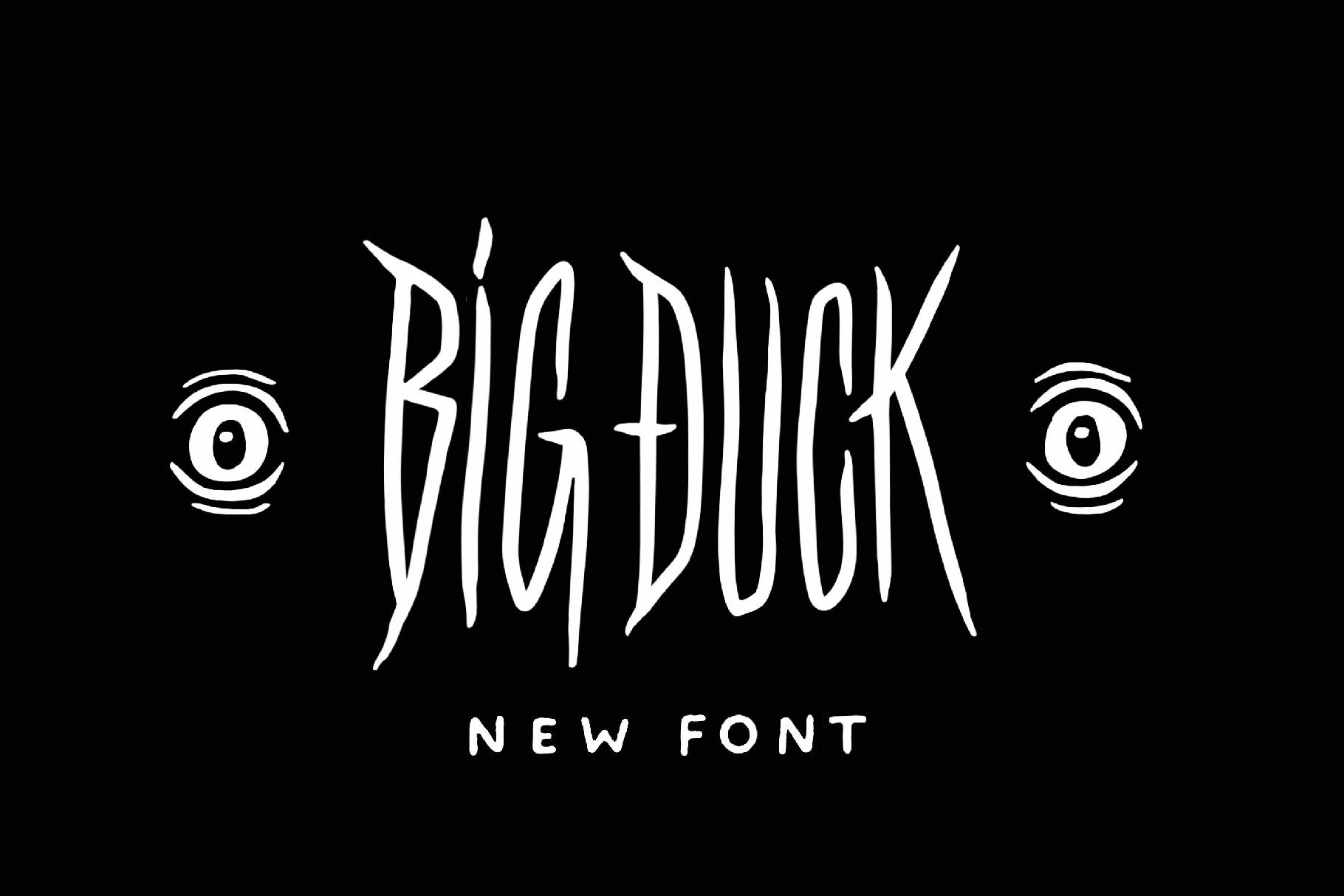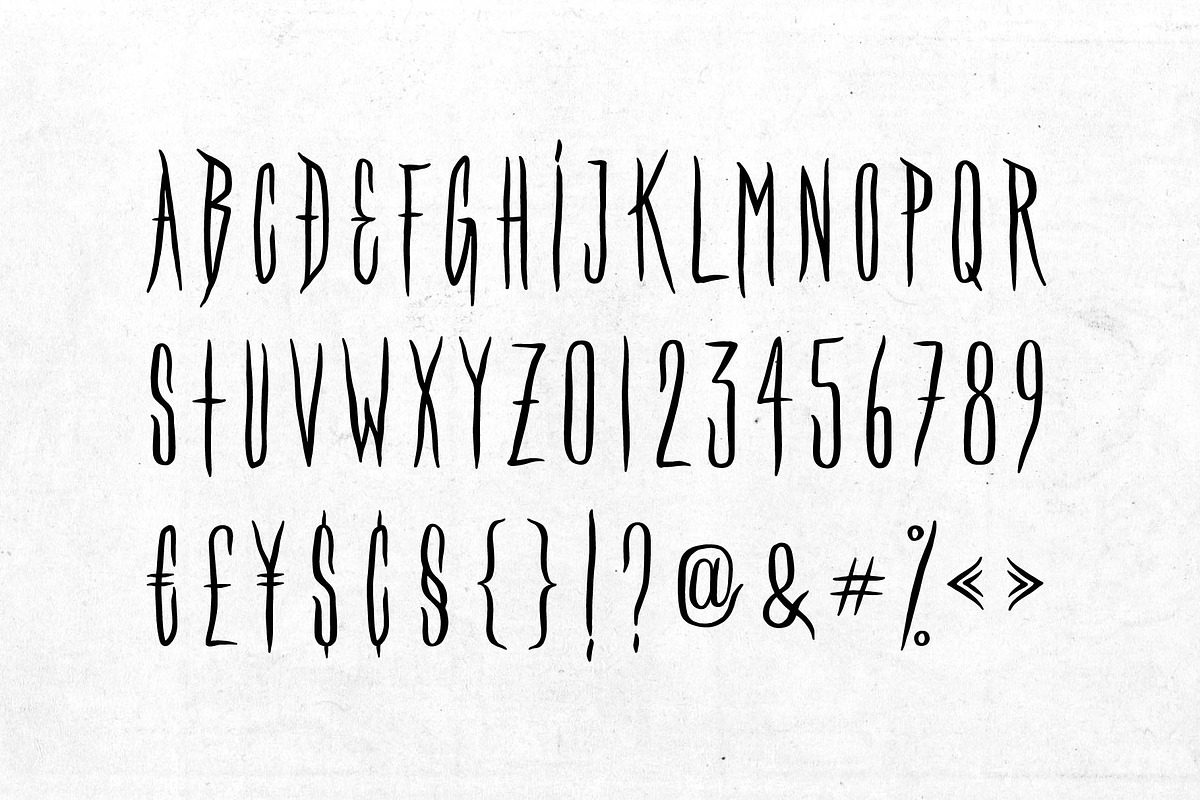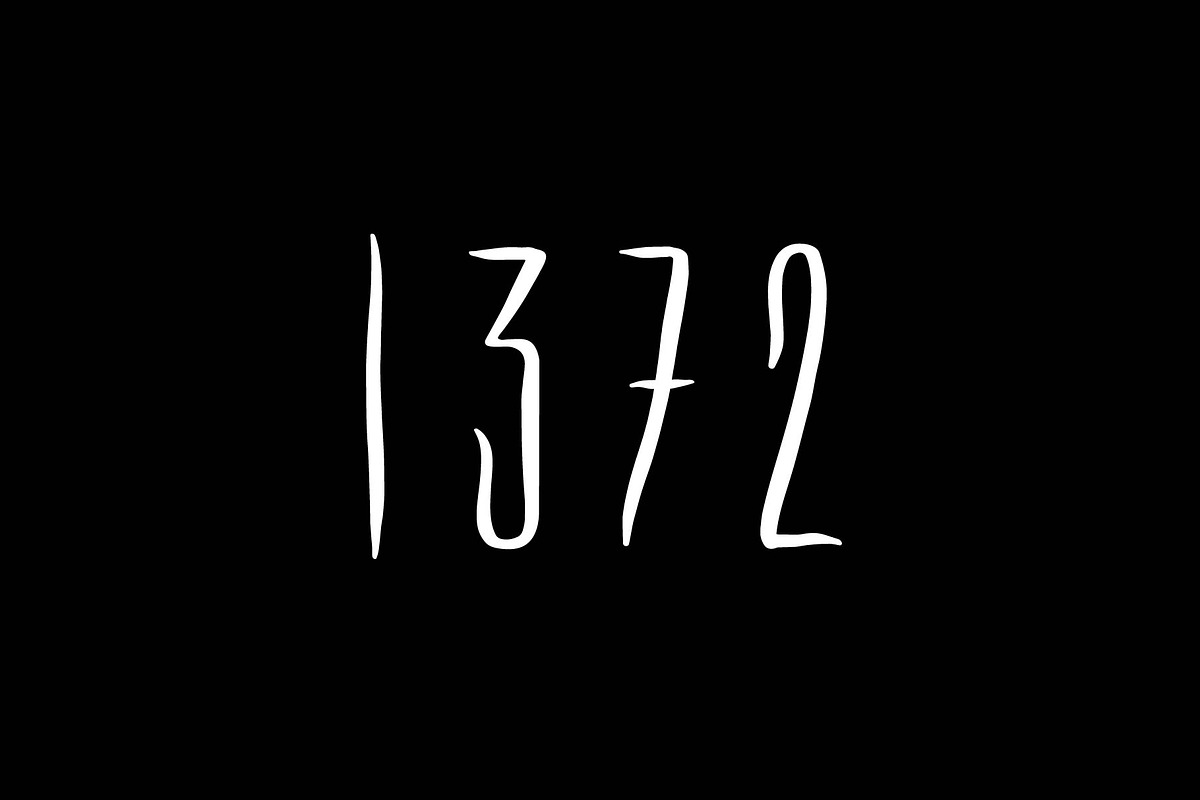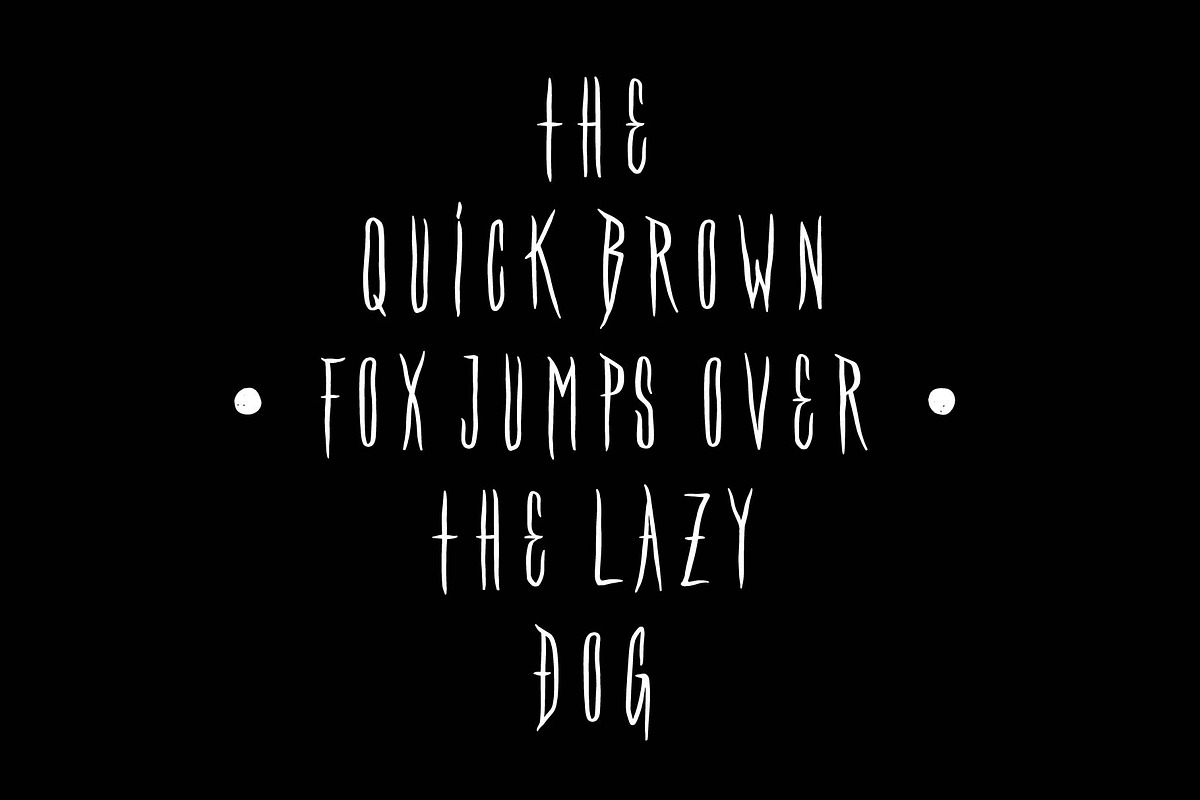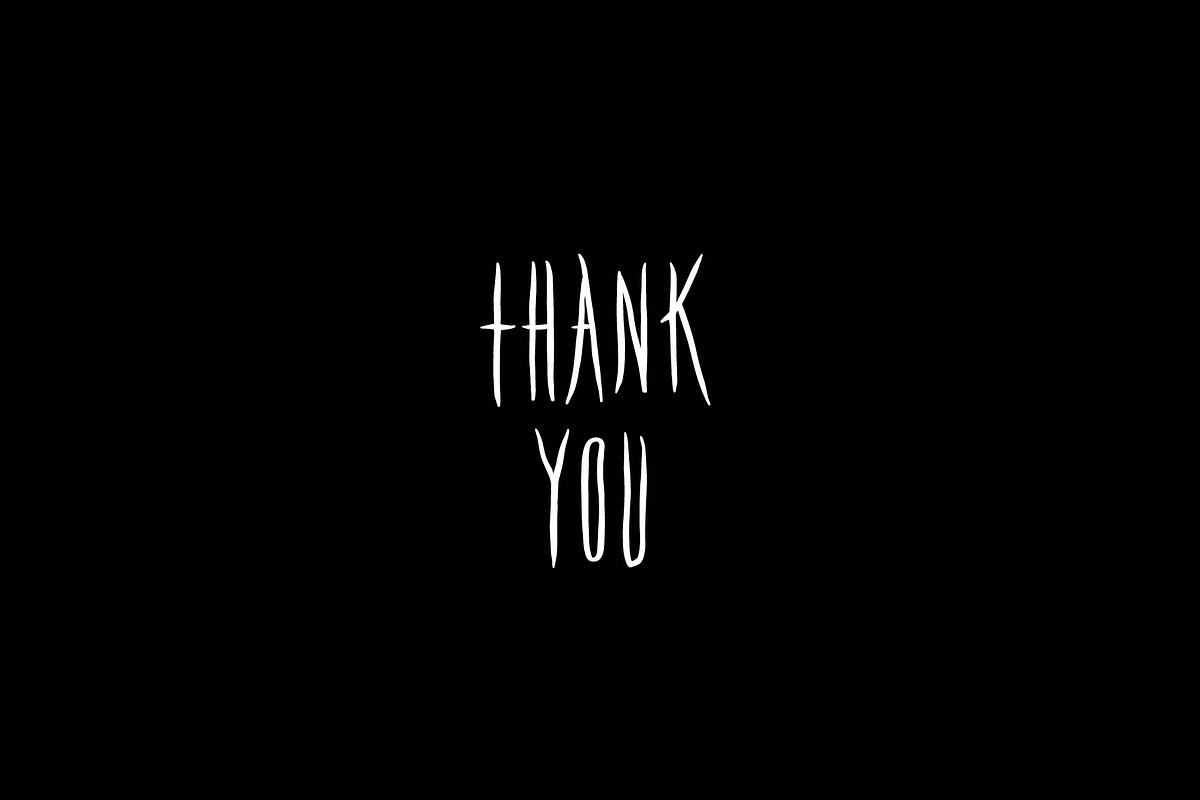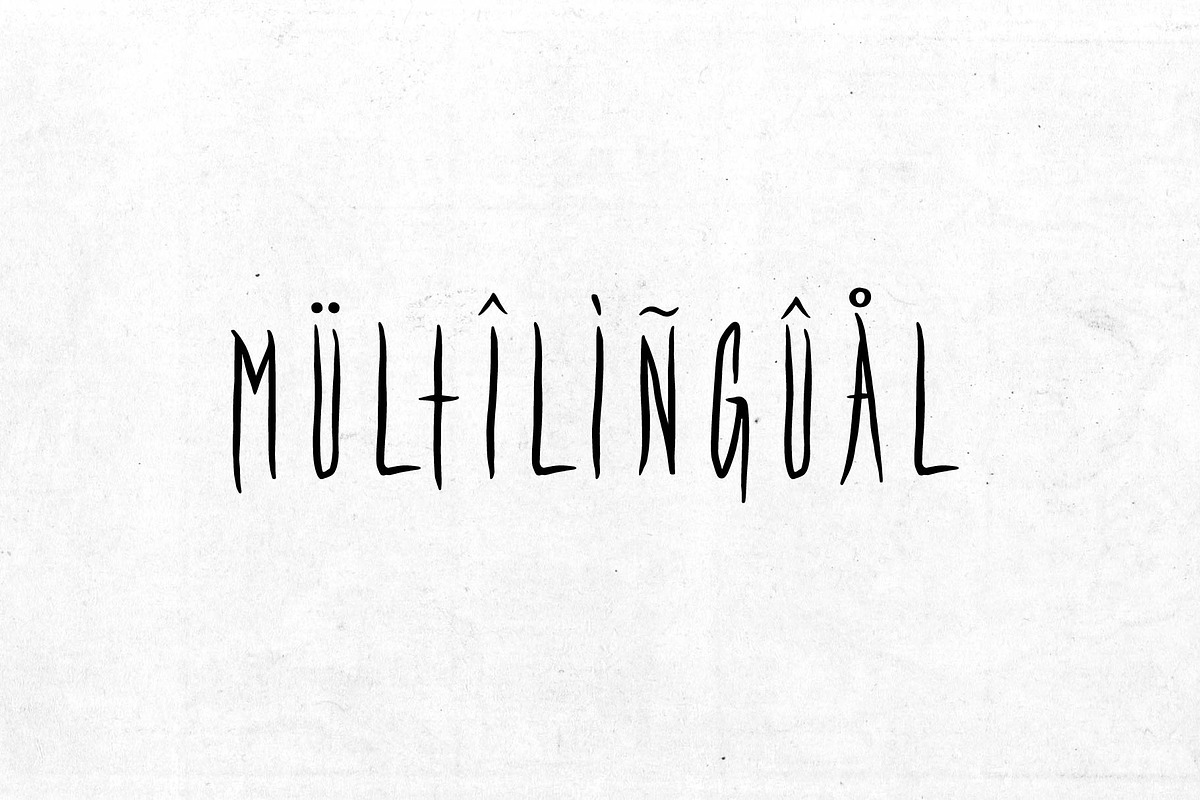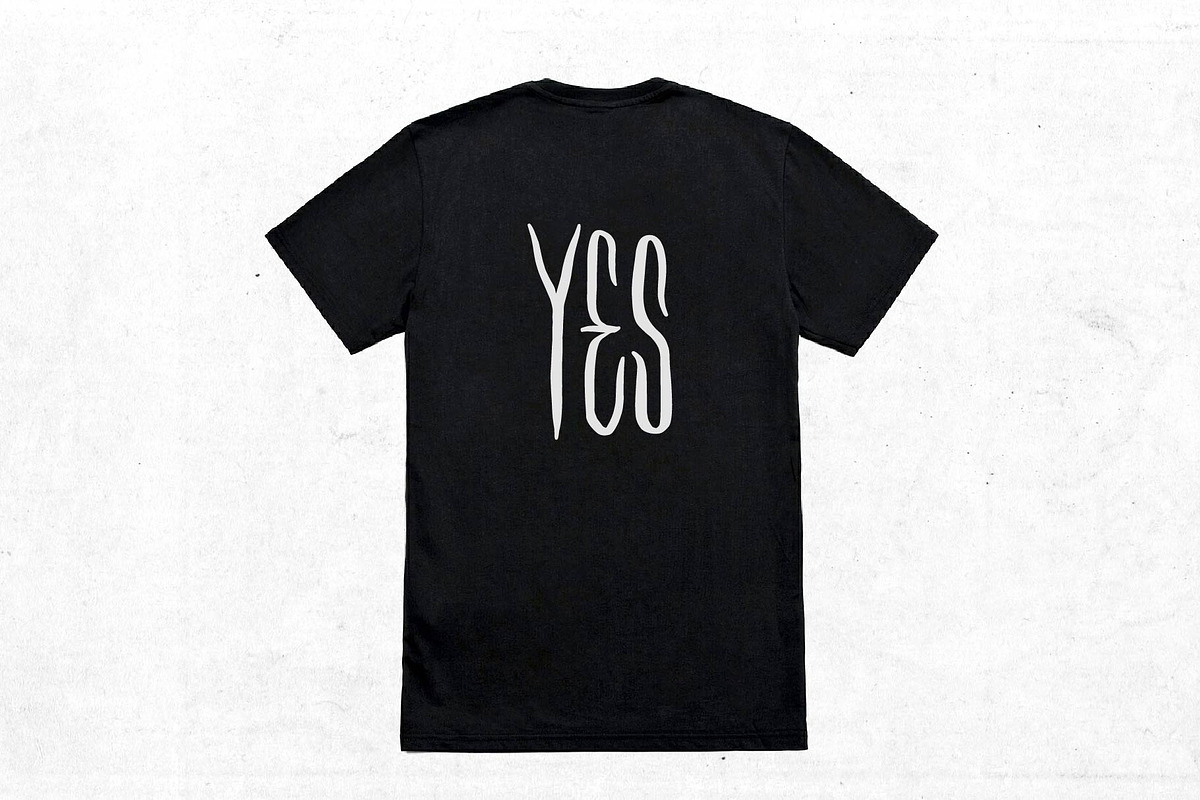
Big Duck - gothic condensed font
Big Duck is a decorative handmade all caps font inspired by metal and punk rock music. It is perfect for: logos, posters, labels, headlines, apparel & more. It comes with characters, numbers, marks and punctuation.